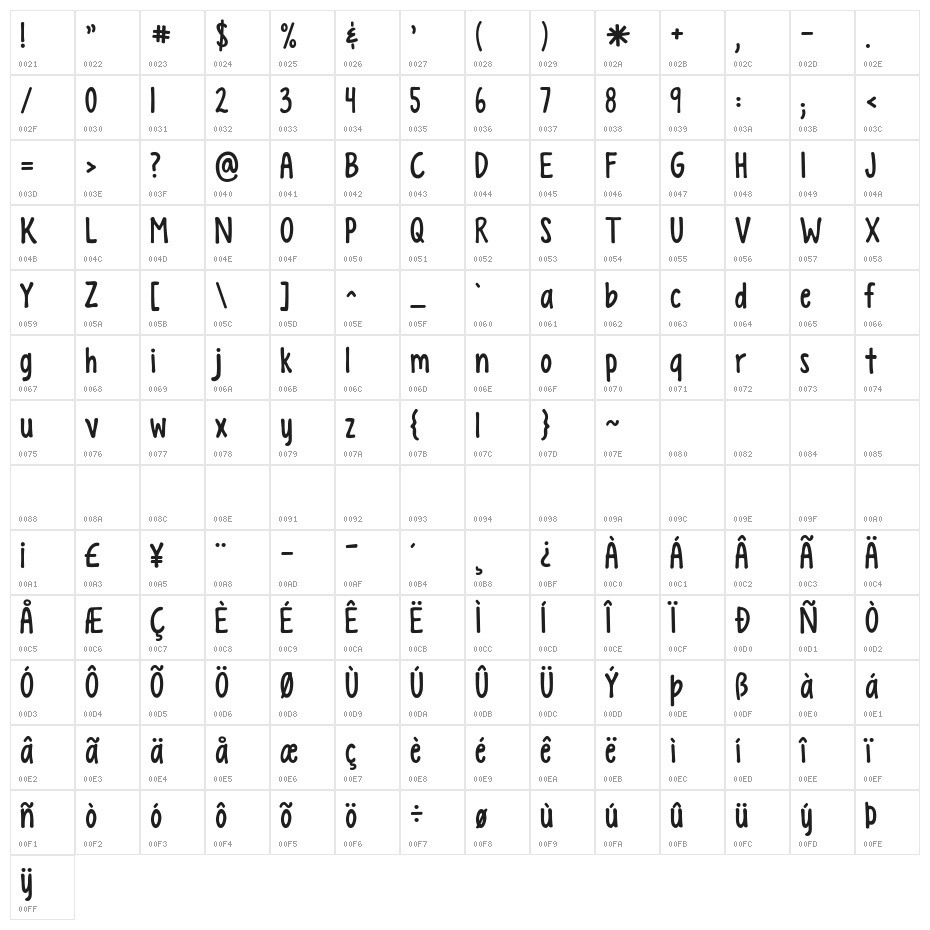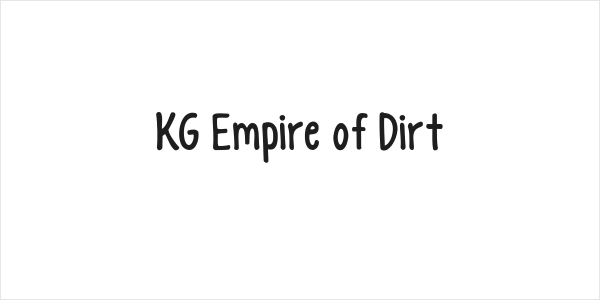
KG Empire of Dirt Font
KG Empire of Dirt Description
This font features a playful and casual handwritten style, characterized by its rounded edges and slightly irregular letterforms. The uppercase and lowercase letters maintain a consistent flow, while the numbers and special characters complement the overall aesthetic. The strokes are moderately thick, providing a bold appearance without overwhelming the design. This font exudes a friendly and approachable vibe, making it suitable for informal and creative projects. Its unique style adds a touch of personality and charm, perfect for capturing attention in a fun and engaging way.
| Proposed Projects | Ideal for children's books, greeting cards, playful branding, and social media graphics. |